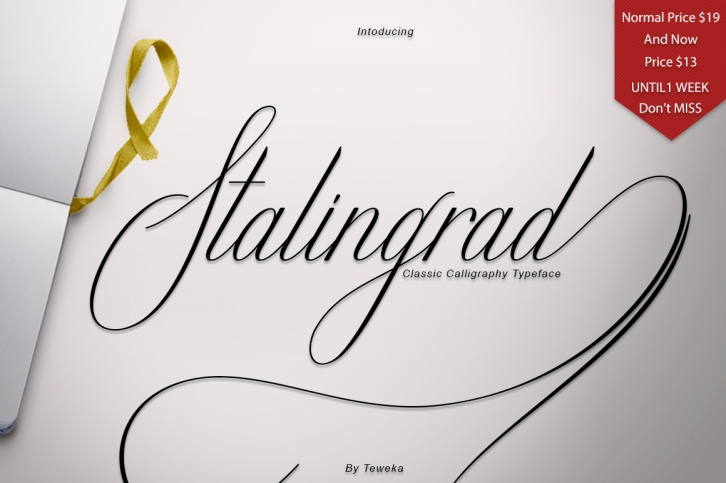
Stalingrad Classic Calligraphy is a great font that was designed by Teweka. Imagine the amount of combinations you can create using this font! The archive is 6.20 MB and it was released on July 3, 2017. Stalingrad Classic Calligraphy looks beautiful on wedding invitations, greeting cards, logos, posters, labels, t-shirt designs, logos, business cards and is perfect for use in ink or watercolor works, fashion, magazines, packaging and food menus, children's books and more!